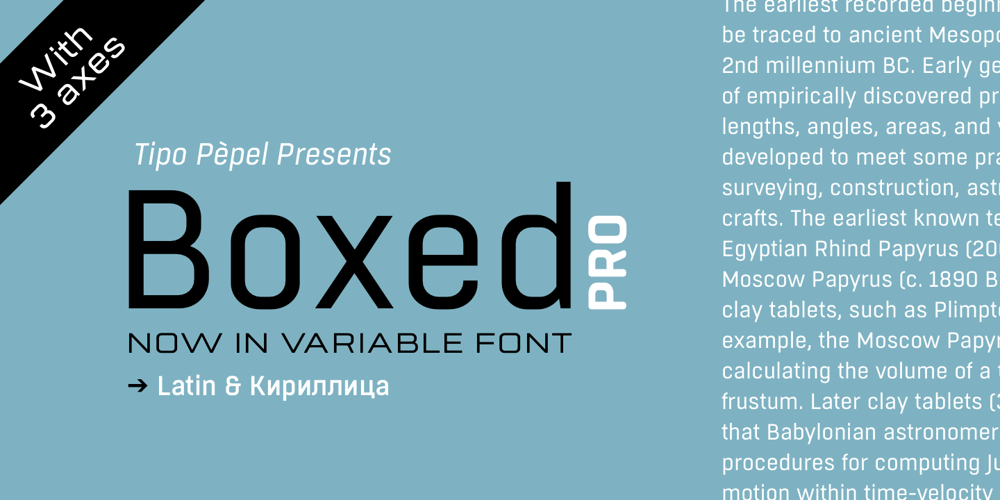
Boxed Pro Font Family was designed by Josep Patau Bellart and published by Tipo Pèpel. Boxed Pro contains 2 styles and family package options. Boxed, the best seller of the Tipo Pèpel foundry has been expanded with variable font technology to multiply its creative possibilities, from now on and with a single file, it is possible to control its appearance thanks to three axes with which to modify the weight, the rounding and the the width of the characters. Offering more options to customize the appearance of the text and personalize the headlines.Boxed typography is brightly conceived and designed to look good on small screen devices, but offering also enlightened looks on paper. The semi-modular geometric font shapes seek to be fully responsive to the grid of screen«s pixels to deliver a crisp, fluid reading rate.It offers an extensive set of Latin characters, even the Cyrillic.